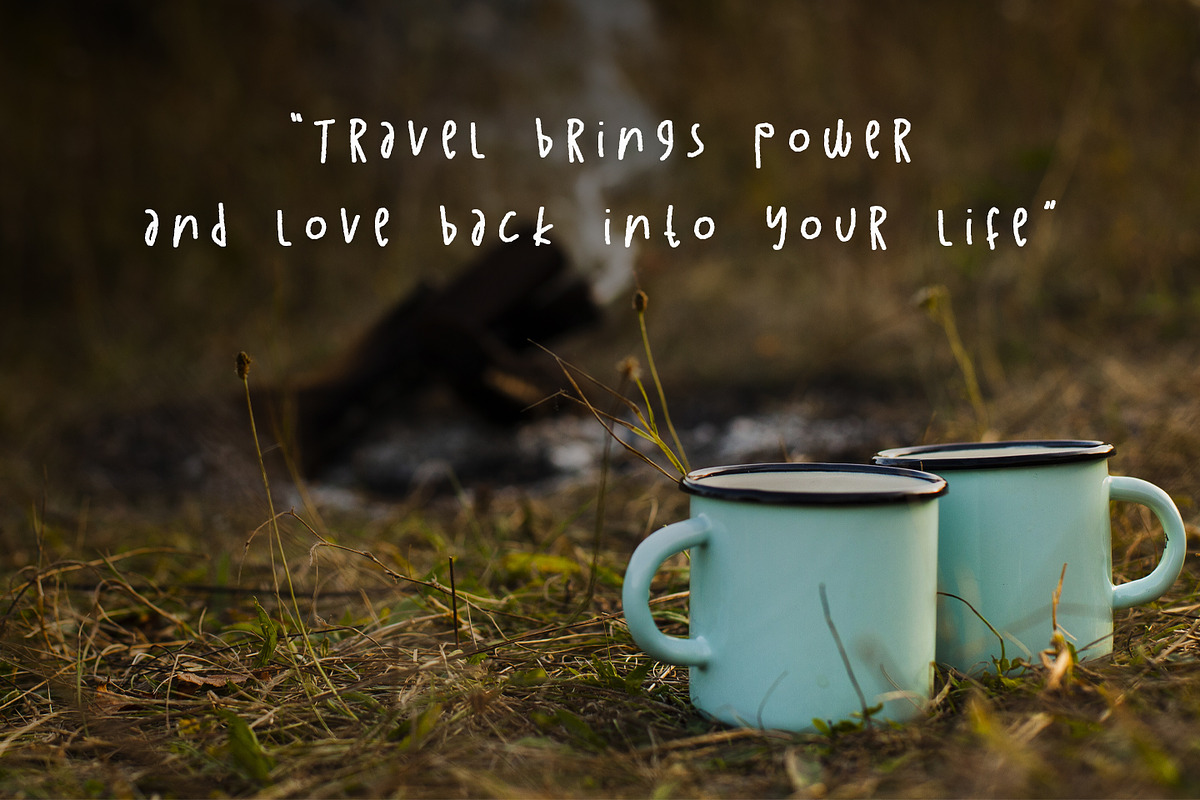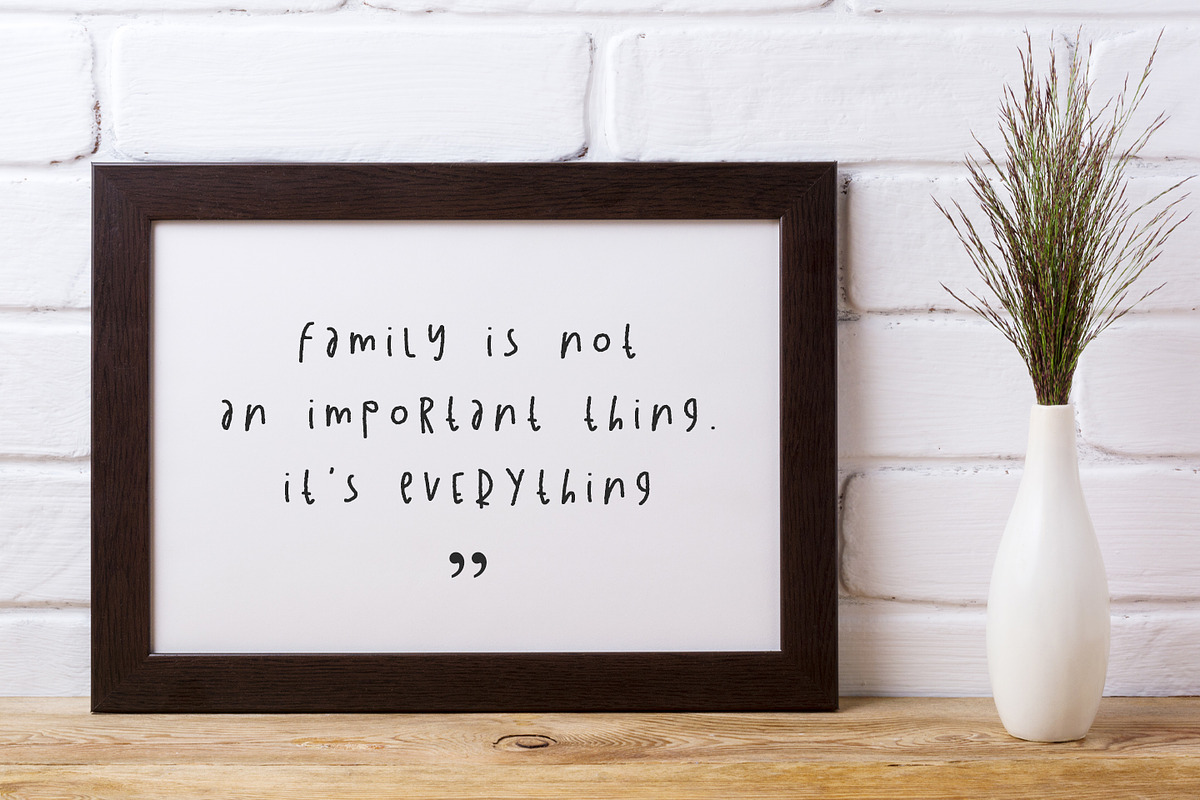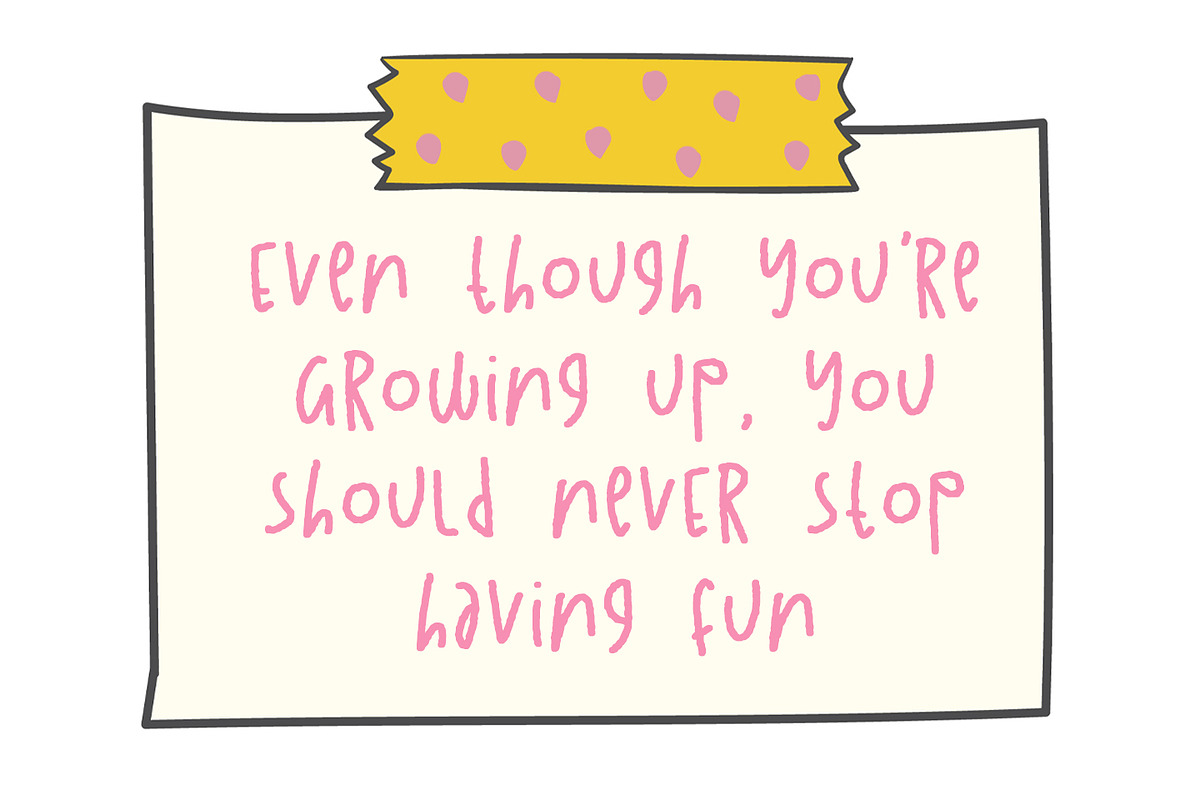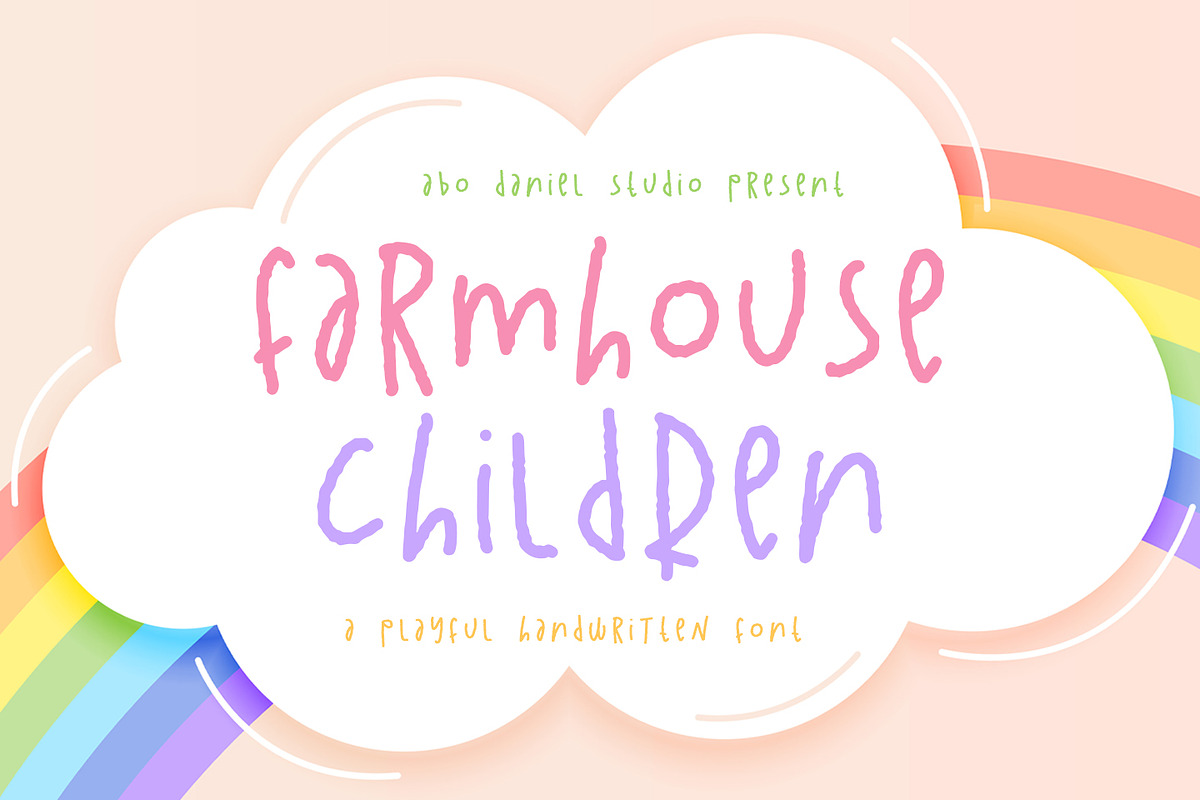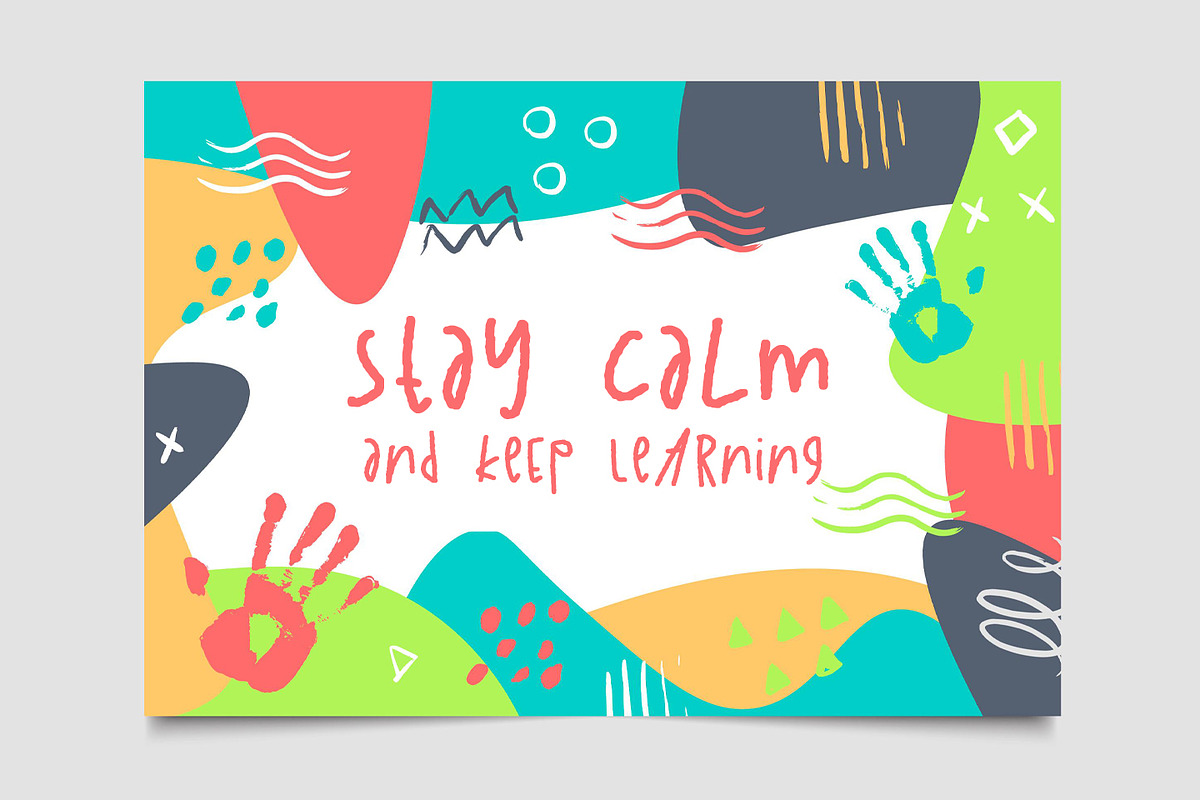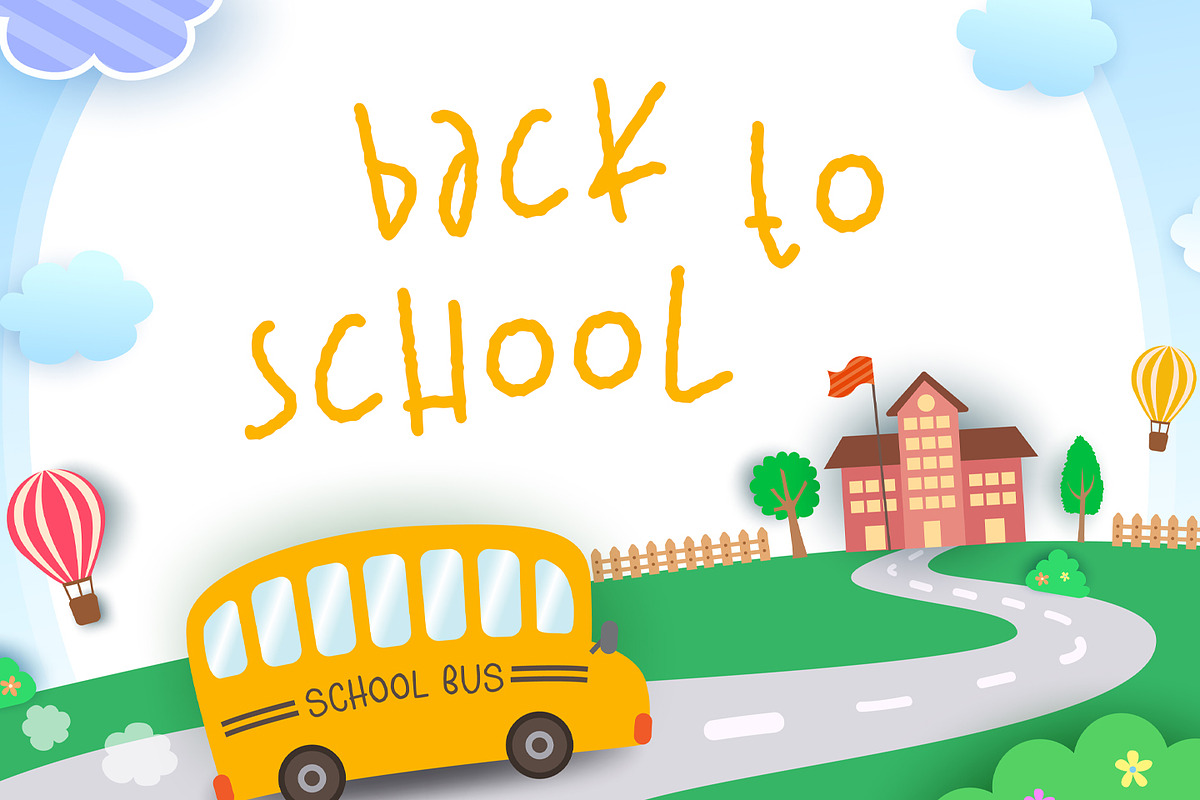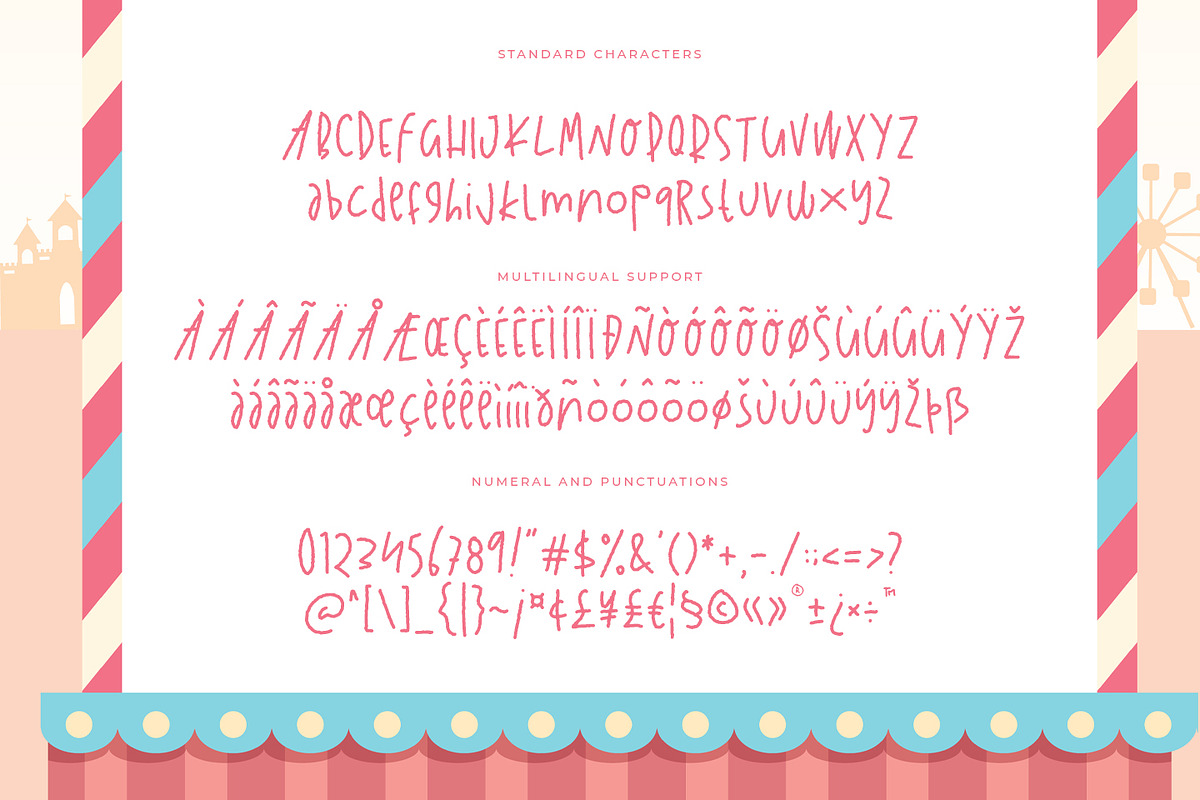
Farmhouse Children
introducing
FARMHOUSE CHILDREN - a playful handwritten font -
This font is designed for crafters
It is great for branding, packaging, quotes, t-shirt design, card, banners, and anything of craft project that needs a kid's style.
The combination of uppercase and lowercase is great, unique, and very fun
Let's play with this awesome font!